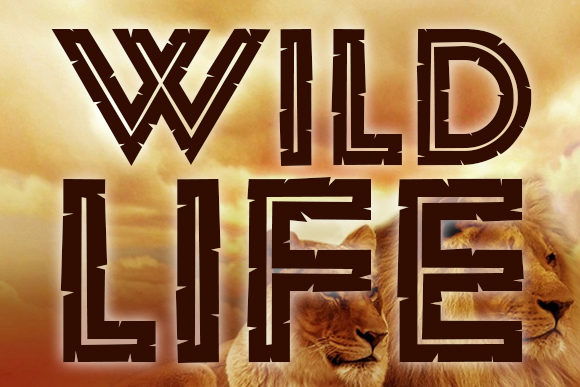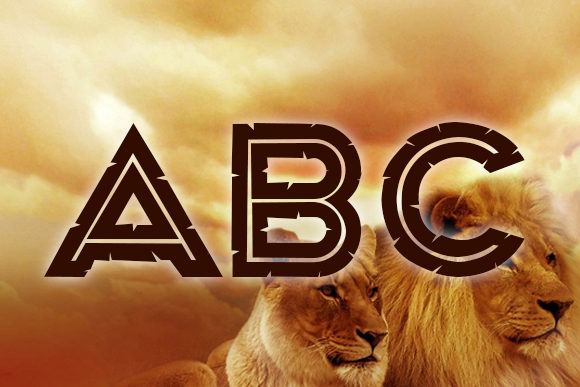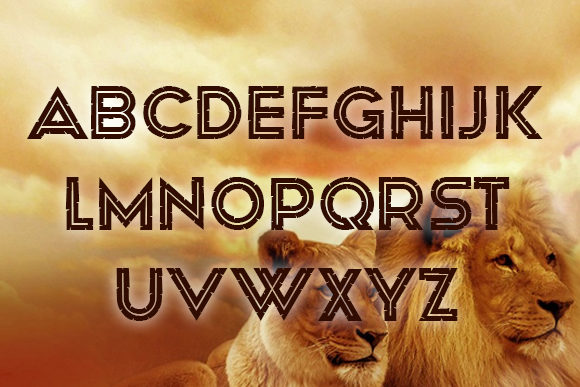
The Birth of a Masterpiece: Unveiling the Africa Font
Enter the Africa Font, a thick lettered and daring display font that’s ready to take your creations to the next level. With its bold personality, this font is the perfect companion for designers looking to add a touch of sophistication and elegance to their work. Whether you’re working on a magazine cover, a poster, or a website, the Africa Font has the potential to elevate any project and make it truly unforgettable.
- Unique Characteristics: Africa Font features a unique blend of traditional African typography and modern design elements, making it an excellent choice for projects that require a touch of African culture.
Africa Font Review
Overall, I think the Africa Font is a decent choice for projects related to the continent or cultural themes. Here are some points to consider:
- The font has a unique and culturally relevant aesthetic that can add a touch of authenticity to designs.
- The font’s irregularities and imperfections give it a natural, handmade feel that can be appealing for certain projects.
- The font is highly legible, even at small font sizes, making it suitable for a wide range of applications.
- The font may not be suitable for projects that require a more modern or minimalist aesthetic, as its unique features can be distracting.
- The font’s irregularities can also make it challenging to pair with other fonts or design elements.
- The font may not be suitable for large blocks of text, as its uneven spacing can make it difficult to read.
Overall, I think the Africa Font is a great choice for projects that require a unique, cultural touch. However, it may not be the best fit for every project, and designers should carefully consider the font’s limitations before using it.
Tips for Getting the Most Out of Africa Font
Here are some tips for getting the most out of the Africa Font:
- Use the Africa Font for titles and headings to add a touch of cultural flair.
- Combine the Africa Font with other fonts to create a unique and interesting typography.
Common Use Cases for Africa Font
The Africa Font is commonly used in:
- African cultural events and festivals.
- African-themed marketing materials and branding.
- Education and research materials related to Africa.